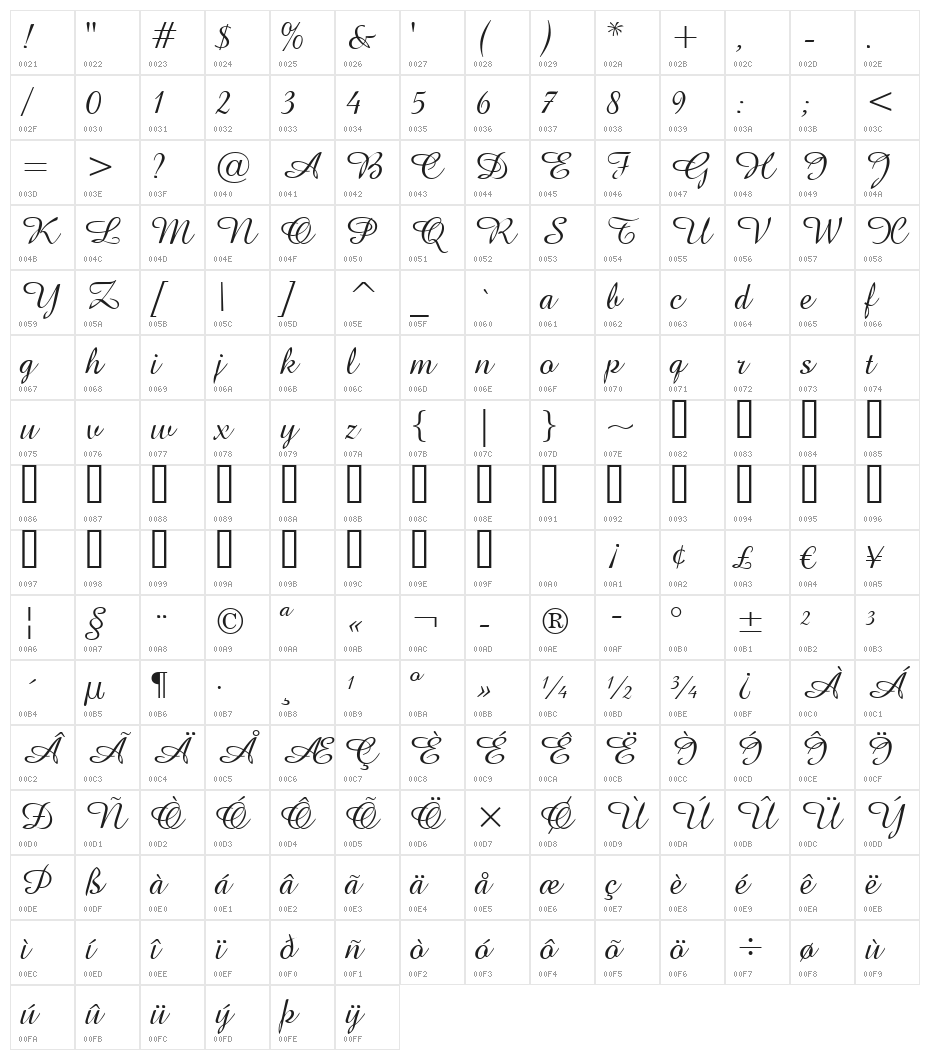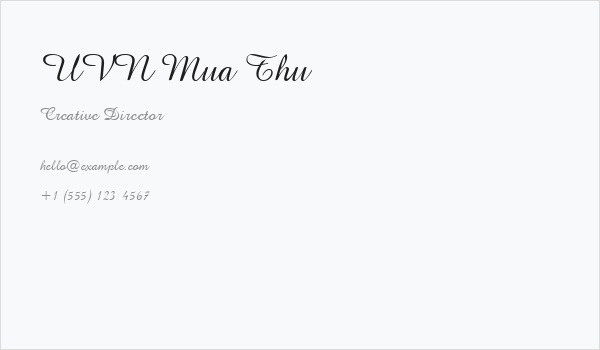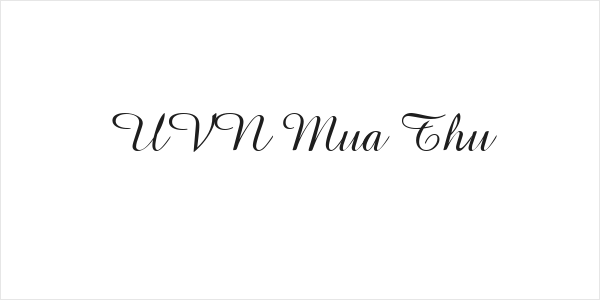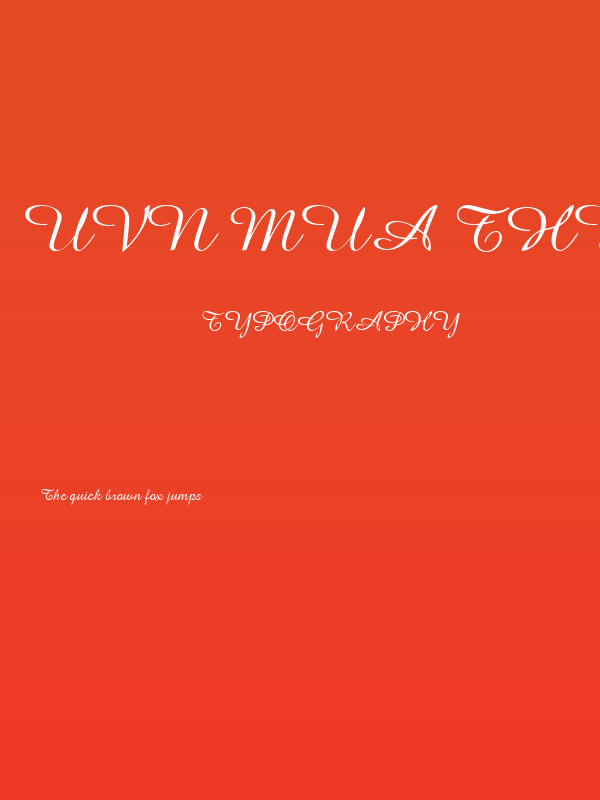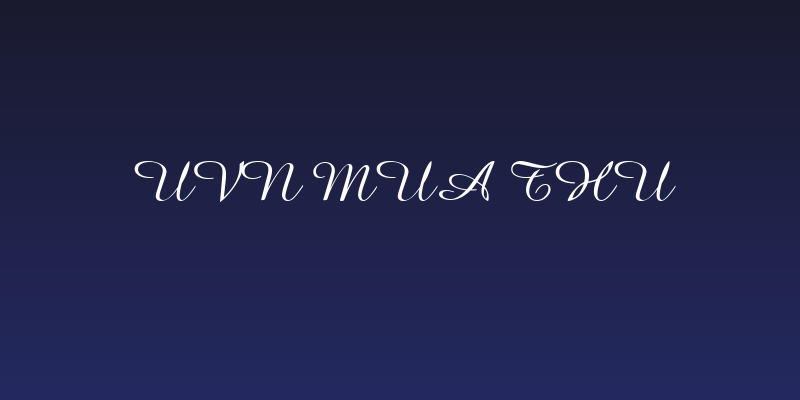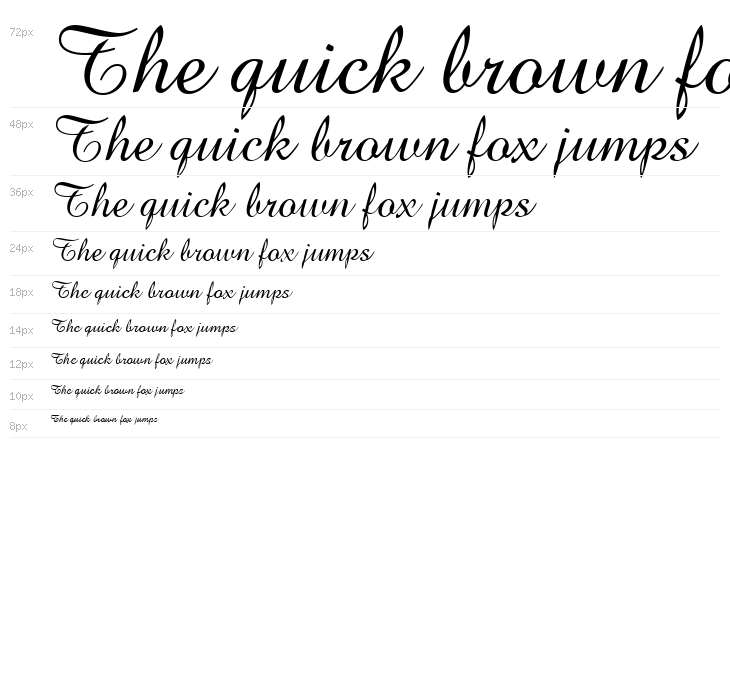
UVN Mua Thu Font
UVN Mua Thu Description
This elegant script font features a flowing, cursive style with smooth, continuous strokes that create a sense of fluidity and grace. The uppercase letters are adorned with intricate loops and flourishes, adding a touch of sophistication and charm. The lowercase letters maintain a consistent slant, enhancing the overall harmony of the design. Numbers and special characters are crafted with the same attention to detail, ensuring a cohesive look across all elements. The font's delicate curves and refined appearance make it ideal for projects that require a touch of elegance and class.